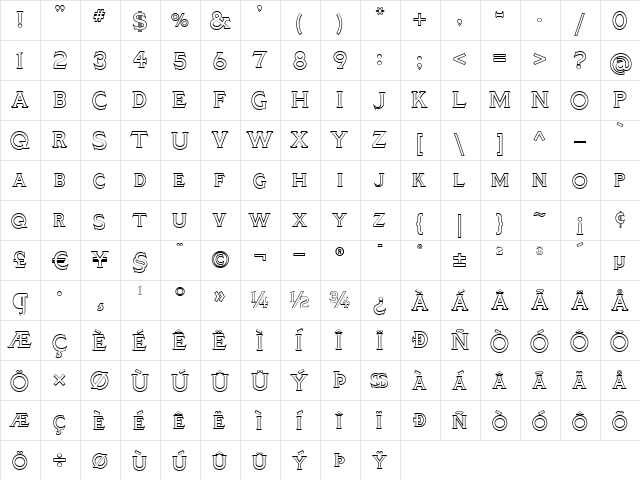
Ozymandias Outline WBW Regular
Design Context for Ozymandias Outline WBW Typeface
Ozymandias Outline WBW is built around its visual character rather than neutral utility — its distinctive forms are designed to make an impression at display sizes.
Font Pairing: Pair with a clean neutral sans-serif for body copy to let Ozymandias Outline WBW's character lead without overwhelming the composition.
Pro Tip: Use Ozymandias Outline WBW exclusively at display sizes — it was designed to be seen, not read at length. Let a neutral companion handle body copy.